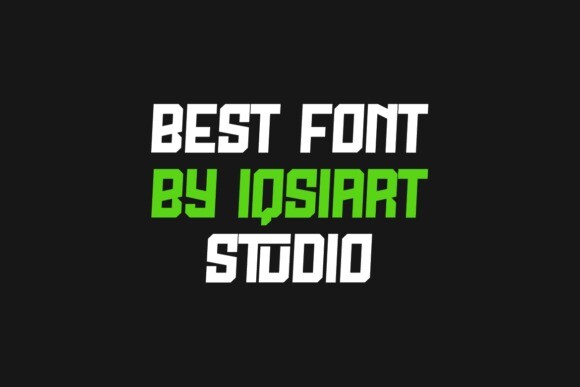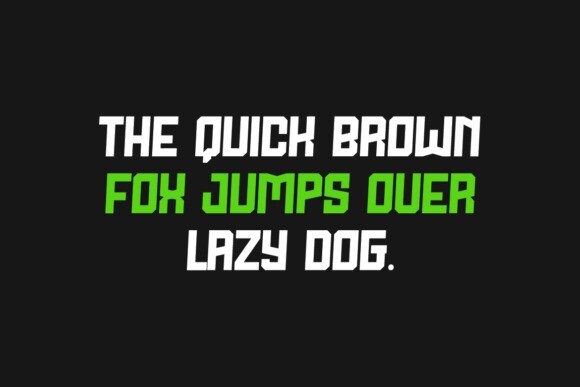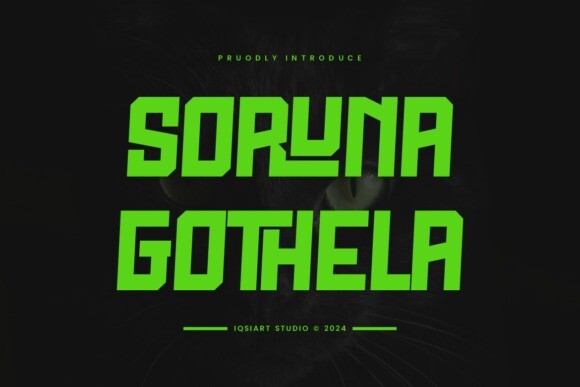
Soruna Gothela Font
Designer: IqsiartStudio
Soruna Gothela Font is a modern, bold display font with clean, straight lines. It’s perfect for eye-catching titles, logos, or posters, giving a strong and confident look.